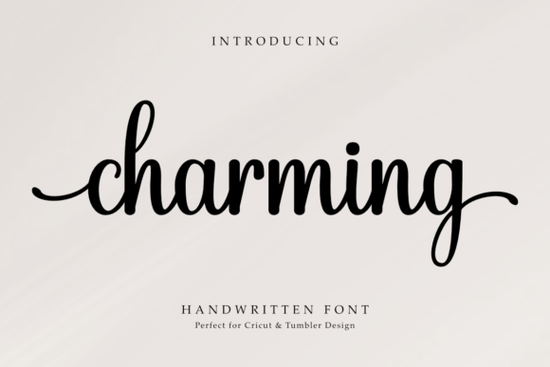
Charming Font is a versatile and easy-to-use handwritten typeface that brings a warm, personal feel to any design. Whether you're creating custom mugs, stickers, or quotes, this font adds a touch of sweetness and approachability. It’s ideal for both personal projects and commercial use, making it a valuable addition to any designer’s toolkit.
If you're looking for a font that blends simplicity with charm, Charming Font is a great choice. Its clean lines and natural flow make it suitable for a wide range of applications, from social media graphics to print-on-demand items. The font works well in both digital and physical formats, ensuring your designs look professional and polished no matter where they’re used.
Designers and crafters often search for fonts that are both functional and stylish. Charming Font fits that need perfectly. It’s especially popular among those who work with Cricut machines, as it’s easy to cut and apply to various materials. Teachers and educators also find it useful for creating personalized classroom materials or student projects.
Why Charming Font Stands Out
One of the key strengths of Charming Font is its readability. Unlike some more ornate scripts, this font maintains clarity even at smaller sizes. This makes it perfect for labels, signs, and other text-heavy designs. It also pairs well with other fonts, allowing you to create visually balanced compositions without overwhelming the viewer.
How to Use Charming Font in Your Projects
Charming Font can be used in a variety of ways. For example, it’s excellent for creating custom tumbler designs, where a friendly and approachable look is essential. It also works well for quote cards, greeting cards, and social media posts that aim to convey warmth and positivity.
Small businesses and print-on-demand sellers will appreciate the font’s flexibility. You can use it to design products like mugs, T-shirts, and stickers that appeal to a broad audience. Its simple yet elegant style ensures that your designs stand out without being too flashy.
When choosing a font, it’s important to consider the context in which it will be used. Charming Font is best suited for designs that aim to feel personal and inviting. If you’re creating something more formal or high-end, you may want to explore other options. However, for most casual and creative projects, this font is an excellent choice.
Whether you're a seasoned designer or just starting out, Charming Font provides a reliable and attractive option for your next project. Its ease of use, versatility, and friendly appearance make it a valuable resource for anyone involved in design, crafting, or small business.
By incorporating Charming Font into your design process, you can add a personal and appealing touch to your work. It’s a practical and effective tool that can enhance a wide range of creative projects.